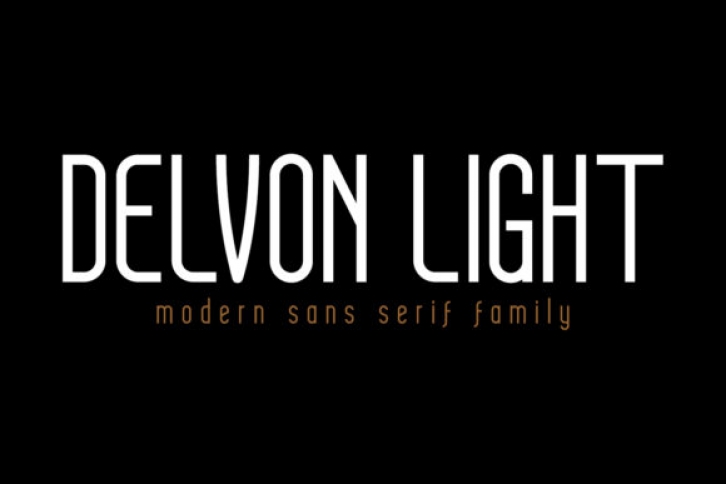
Delvon Light is a modern sans serif font family. It’s perfect for branding, product packaging, invitations, quotes, t-shirt, labels, posters and much more!